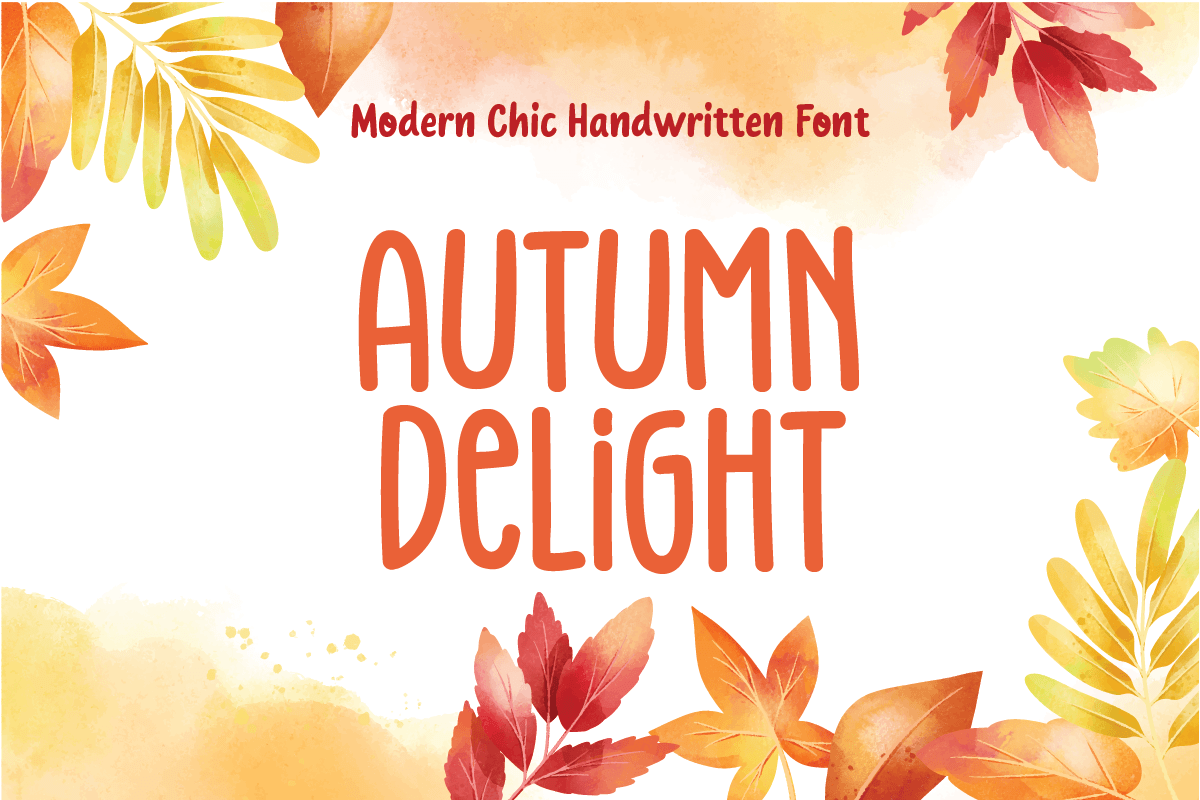
Autumn Delight
-Modern Chic Handwritten Font
Autumn Delight
Autumn Delight is a Modern Chic Handwritten Font that's perfect for Headline, Thumbnail or Merchandise. This font specially crafted for your design projects such as banner, poster, flyer, website design, product packaging, cards and so many more with easy to use but standing out results are so amazing.
Enjoy to Design any your needs with standing out, charming, and playful feels.